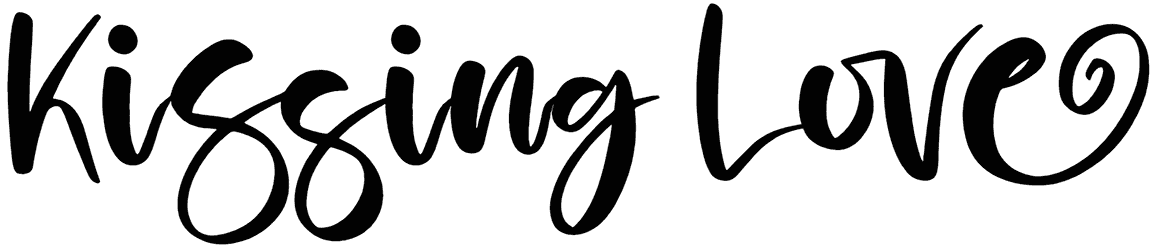
Kissing Love Font
Want a new invitation with a pretty sweet design? Then check out the Kissing Love font pack. This script font features a cursive, authentic, and soft form with two great styles, so it is mostly used for gift boxes, occasions, cards, and so on. Featuring a gorgeous vintage look with delicate details, this love font automatically connects to audiences for more efficiency.